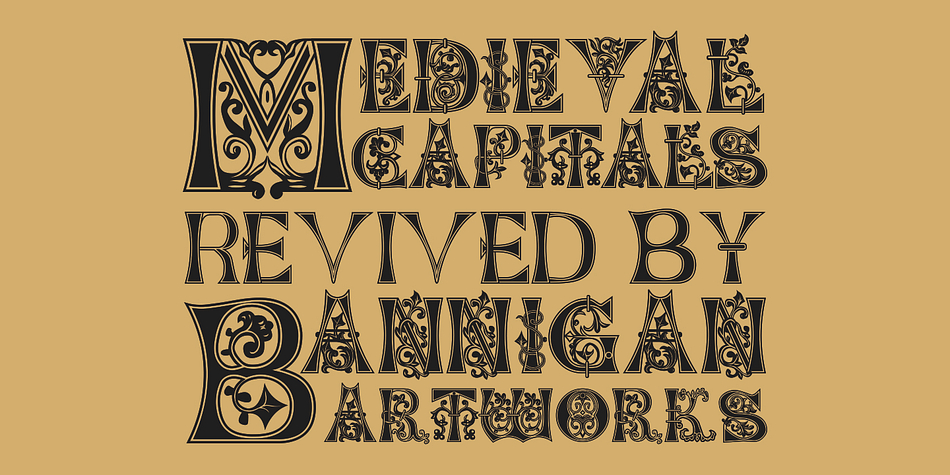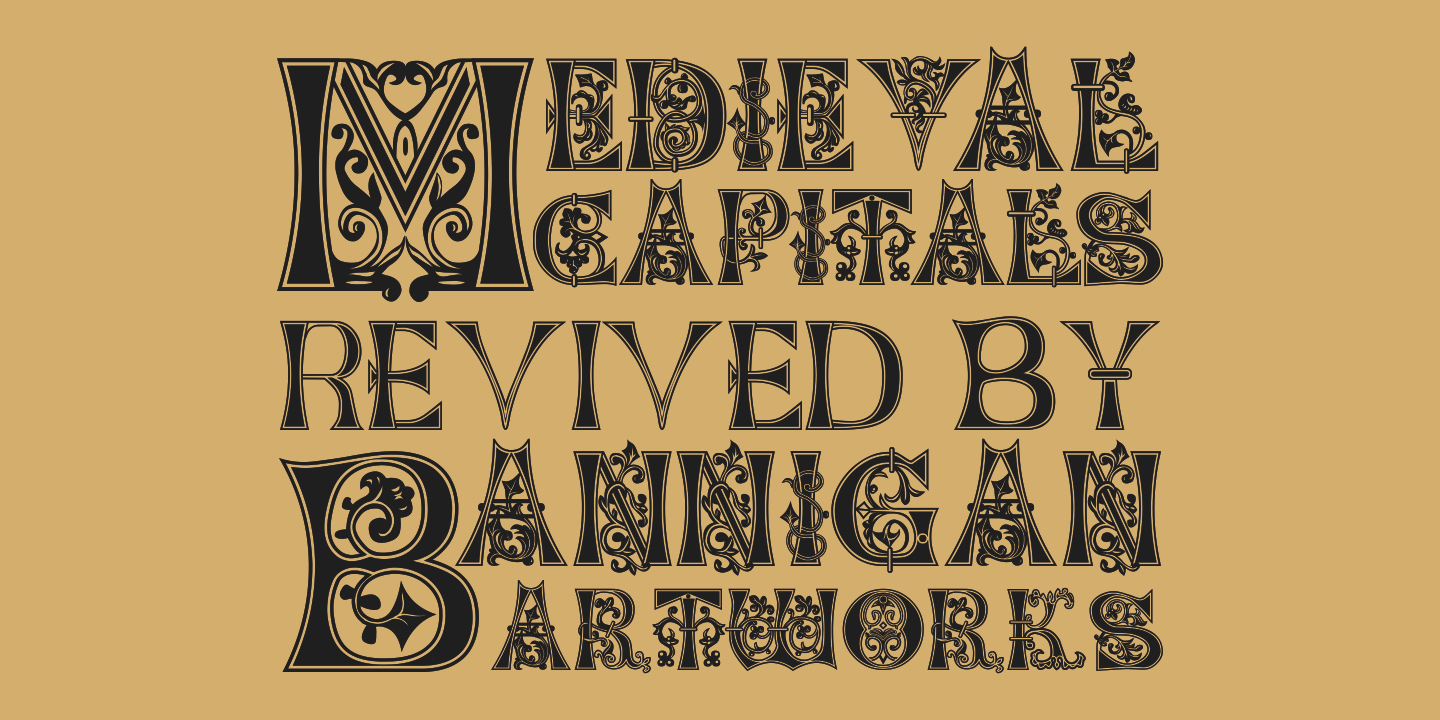
Medieval Caps BA is a monograms and historical font published by Bannigan Artworks.
This is a revival font from an Image of a plate made from Eleventh Century initial letters.
The “numerals” are Roman numbers done as ligatures.